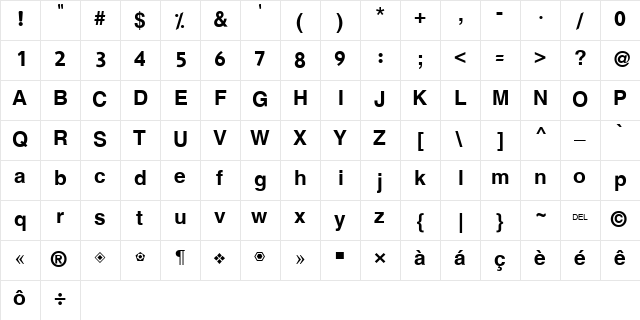
Hacen Beirut Heading Regular
| Foundry | Muhammad Hacen |
| Designer | Muhammad Hacen |
Design Context for Hacen Beirut Heading Typeface
Hacen Beirut Heading takes a measured approach to typography — its balanced proportions and neutral character make it a reliable workhorse for both digital and print work.